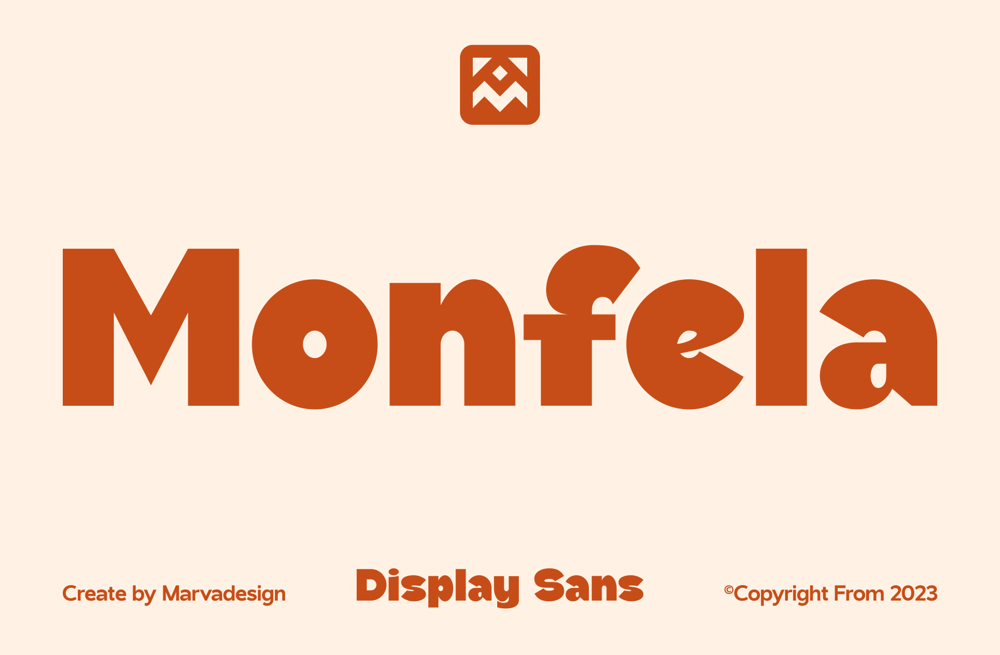
Monfela Font Family was designed by Febrie Setiawan and published by Marvadesign. Monfela contains 1 styles and family package options. Introducing Monfela is a bold and modern display sans-serif font designed to make a strong visual impact. It features rounded yet geometric letterforms, giving it a distinctive and approachable look. The font balances thick strokes with smooth curves, making it ideal for branding, advertising, posters, and packaging design.The slightly playful yet structured letter shapes give Monfela a retro-futuristic appeal, making it versatile for both vintage and contemporary aesthetics. Its high legibility and strong presence make it perfect for headlines, labels, and bold typography projects.